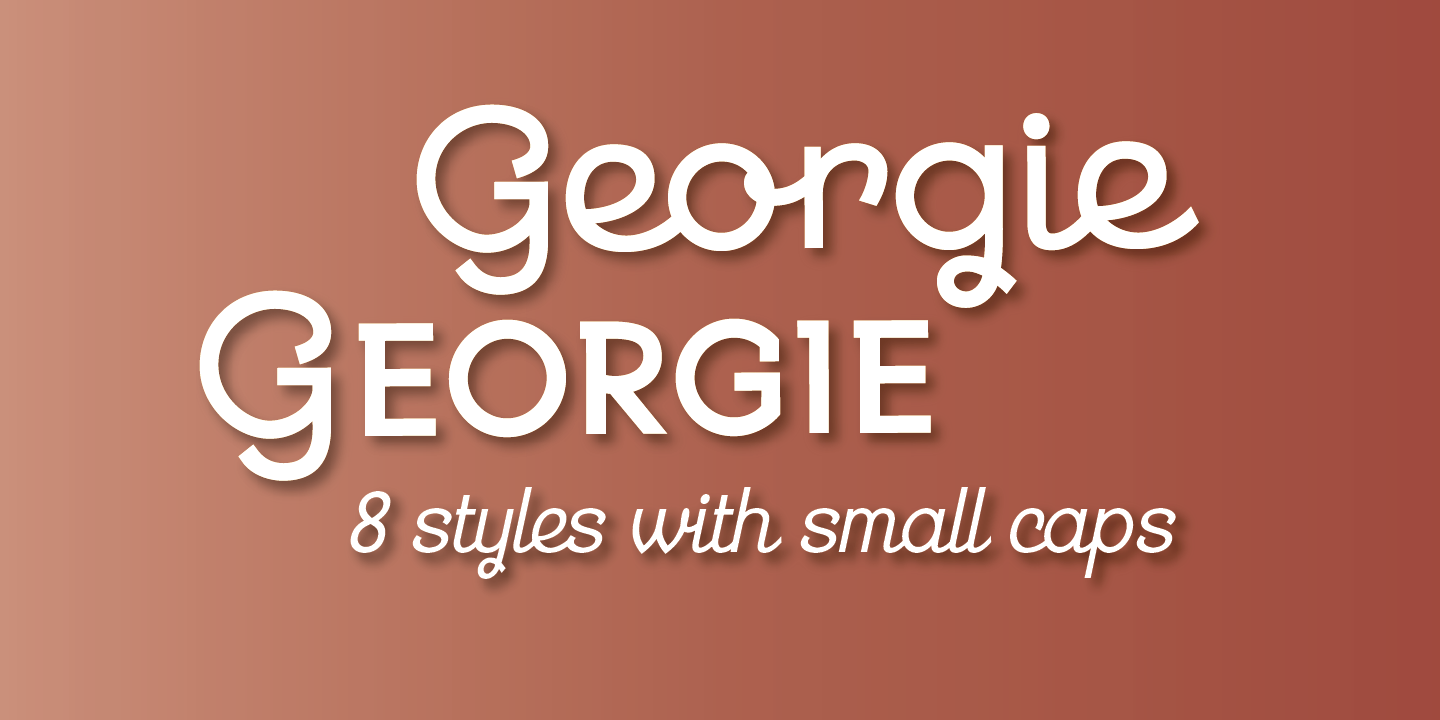
Georgie Font is a charming and versatile typeface that blends classic elegance with a touch of modern simplicity. It's perfectly suited for projects that demand a refined, readable, and friendly aesthetic, such as upscale branding, sophisticated editorial design, elegant wedding stationery, and inviting web content. Imagine Georgie Font gracing the pages of a lifestyle magazine, adding a polished yet approachable feel to a personal blog, or providing a clear and beautiful voice for a non-profit organization. Its balanced proportions and graceful curves ensure your message is conveyed with both clarity and an undeniable sense of timeless appeal, making it ideal for designs that aim for both professionalism and warmth.
What makes Georgie Font truly exciting is its remarkable versatility and understated sophistication. This font excels in creating a harmonious visual experience, making it suitable for both headlines and longer blocks of text where legibility is paramount. The thoughtful construction of each character, often featuring clean lines and subtle details, ensures high clarity across various sizes and mediums. It’s more than just a typeface; it’s a strategic design tool that helps convey reliability, elegance, and a polished aesthetic. Georgie Font stands out for its broad adaptability and its capacity to elevate any design with its graceful yet profound visual presence.
Georgie Font typically comes with a comprehensive family to provide extensive flexibility for diverse design applications. This usually includes a range of weights such as light, regular, medium, and bold, often accompanied by corresponding italic versions. Some families might also offer condensed or extended styles, along with a variety of ligatures, further enhancing its typographic possibilities. This extensive Georgie Font Free Download family ensures you have all the tools necessary to create cohesive and dynamic designs, allowing for consistent branding and powerful visual communication across all your platforms, from print media to digital interfaces.